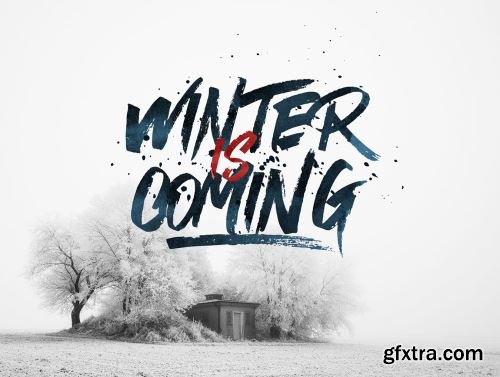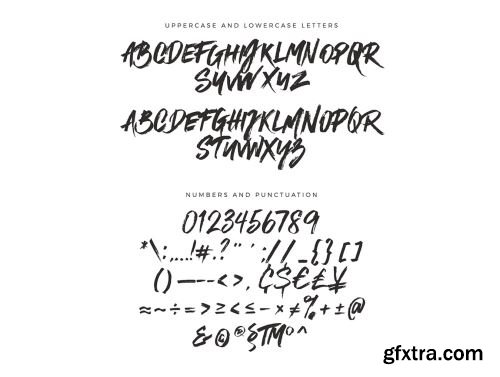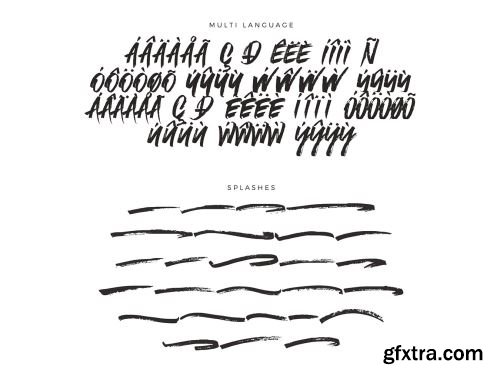
Mystique Marker Font Ui8.net
Mystique comes with a full set of upper and lower case characters - giving you the extra freedom to turn your text into authentic custom-made hand lettering.